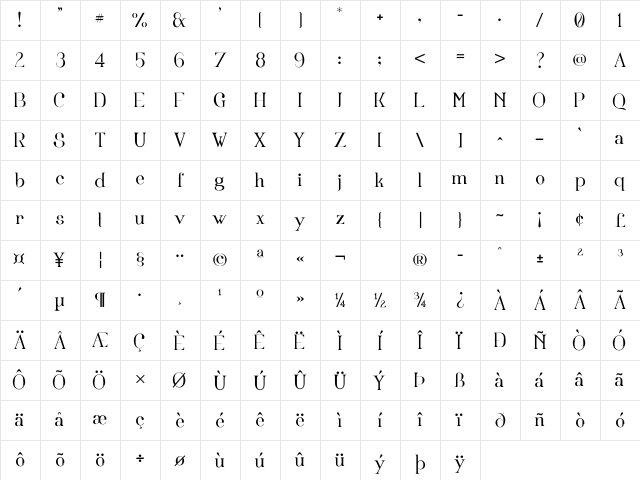
Fortunata Medium Free Font
Fortunata Medium
Design Context for Fortunata
Fortunata is a composed and adaptable typeface that performs quietly and consistently across a wide range of design contexts.